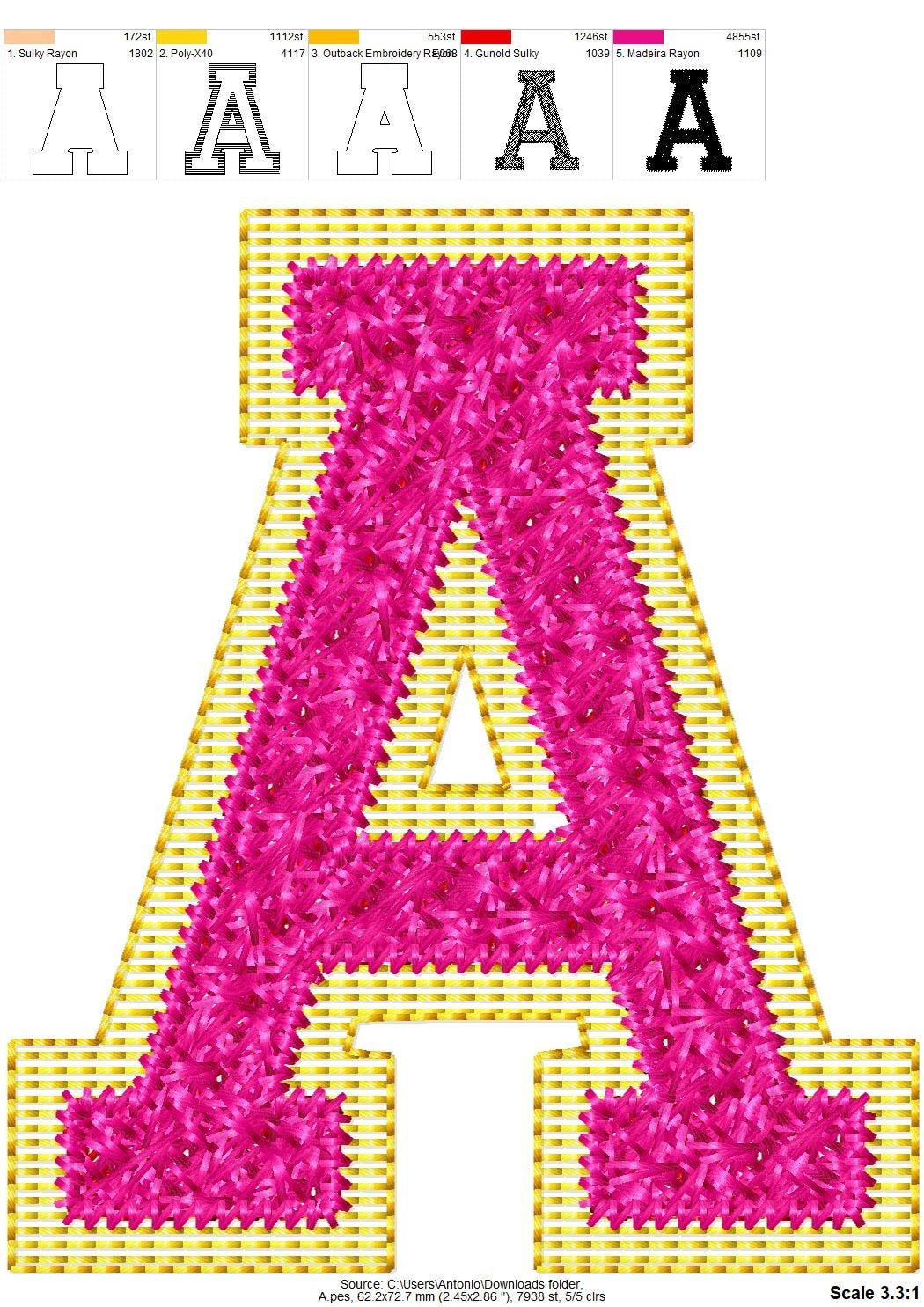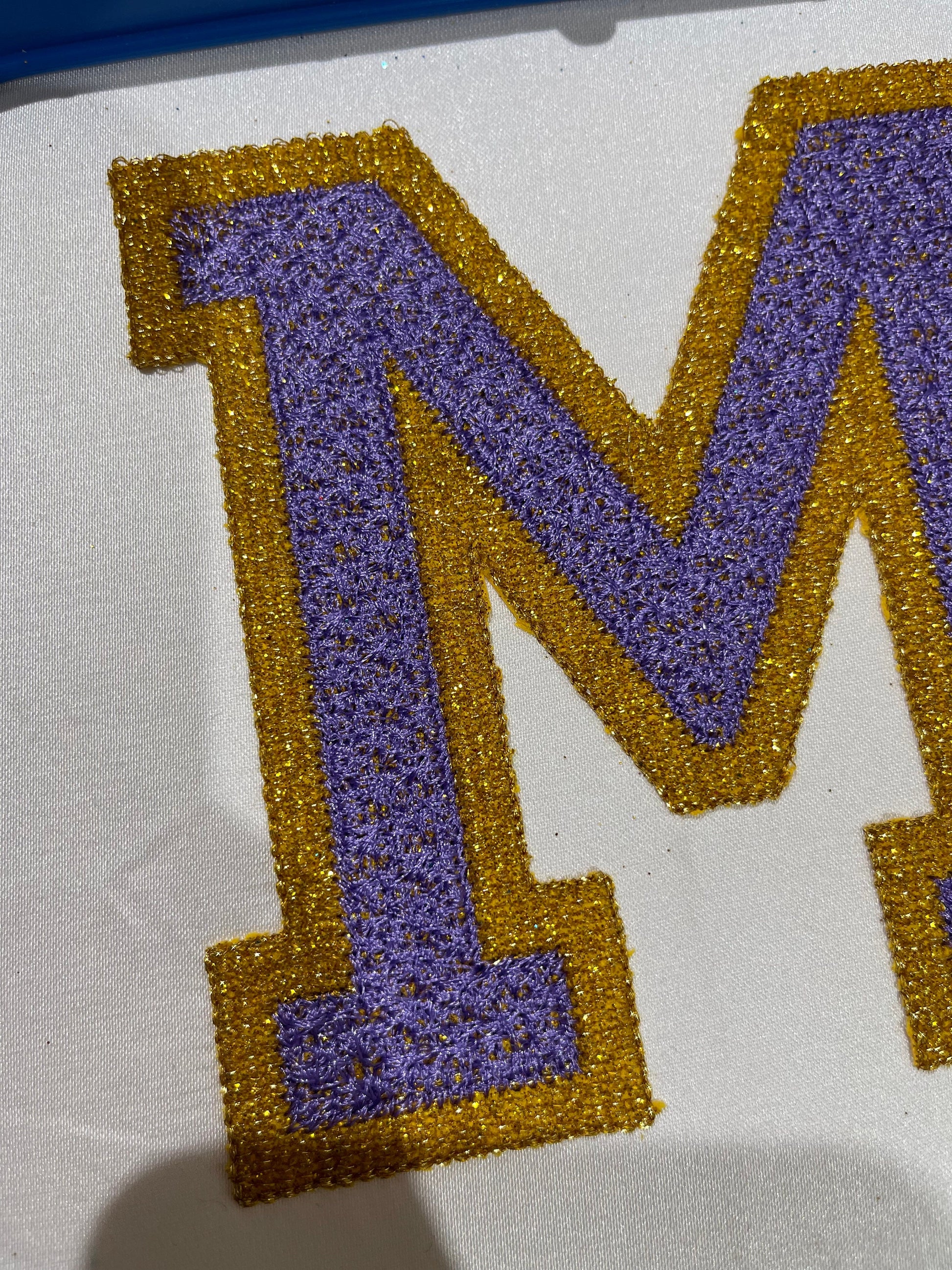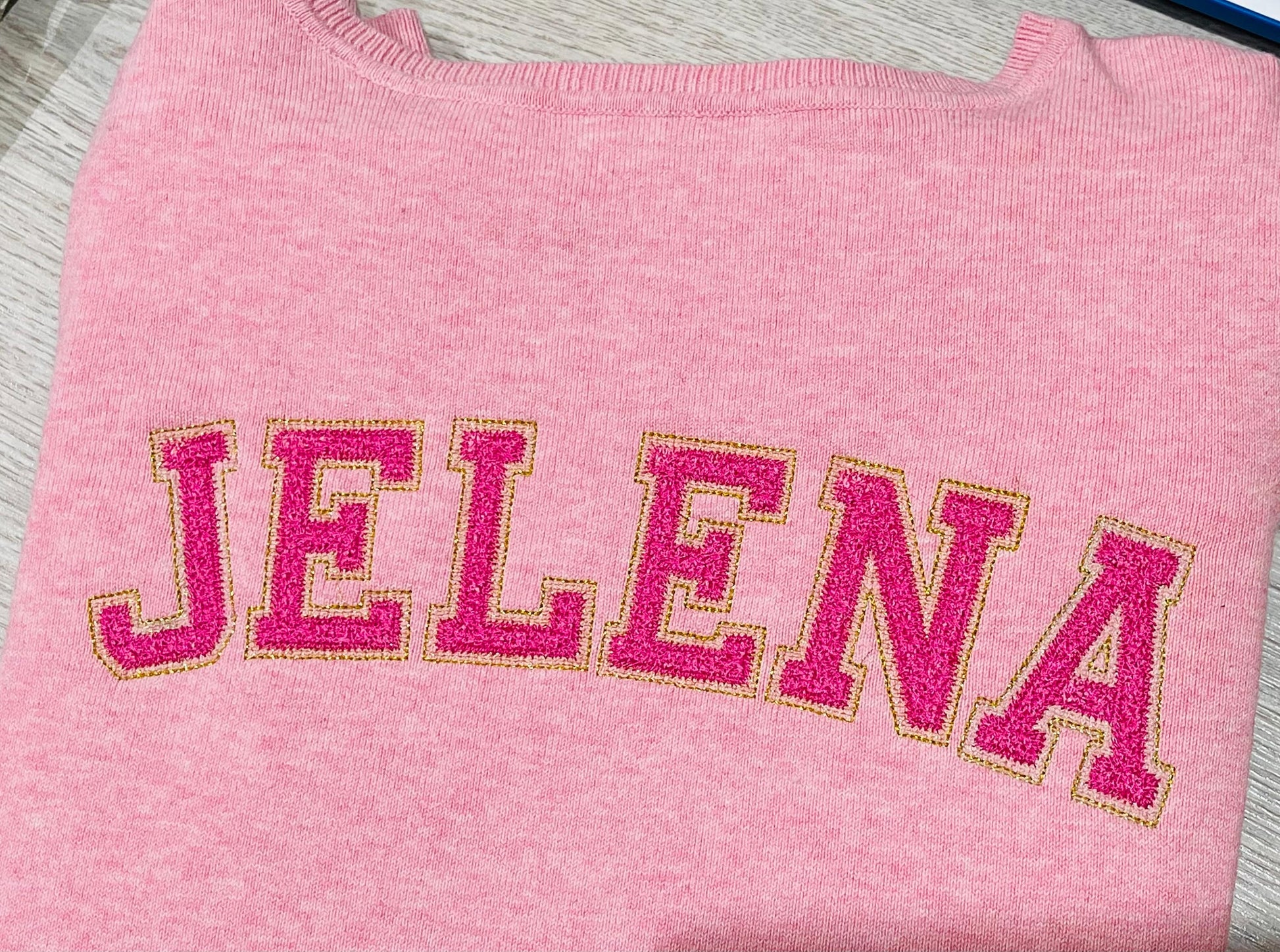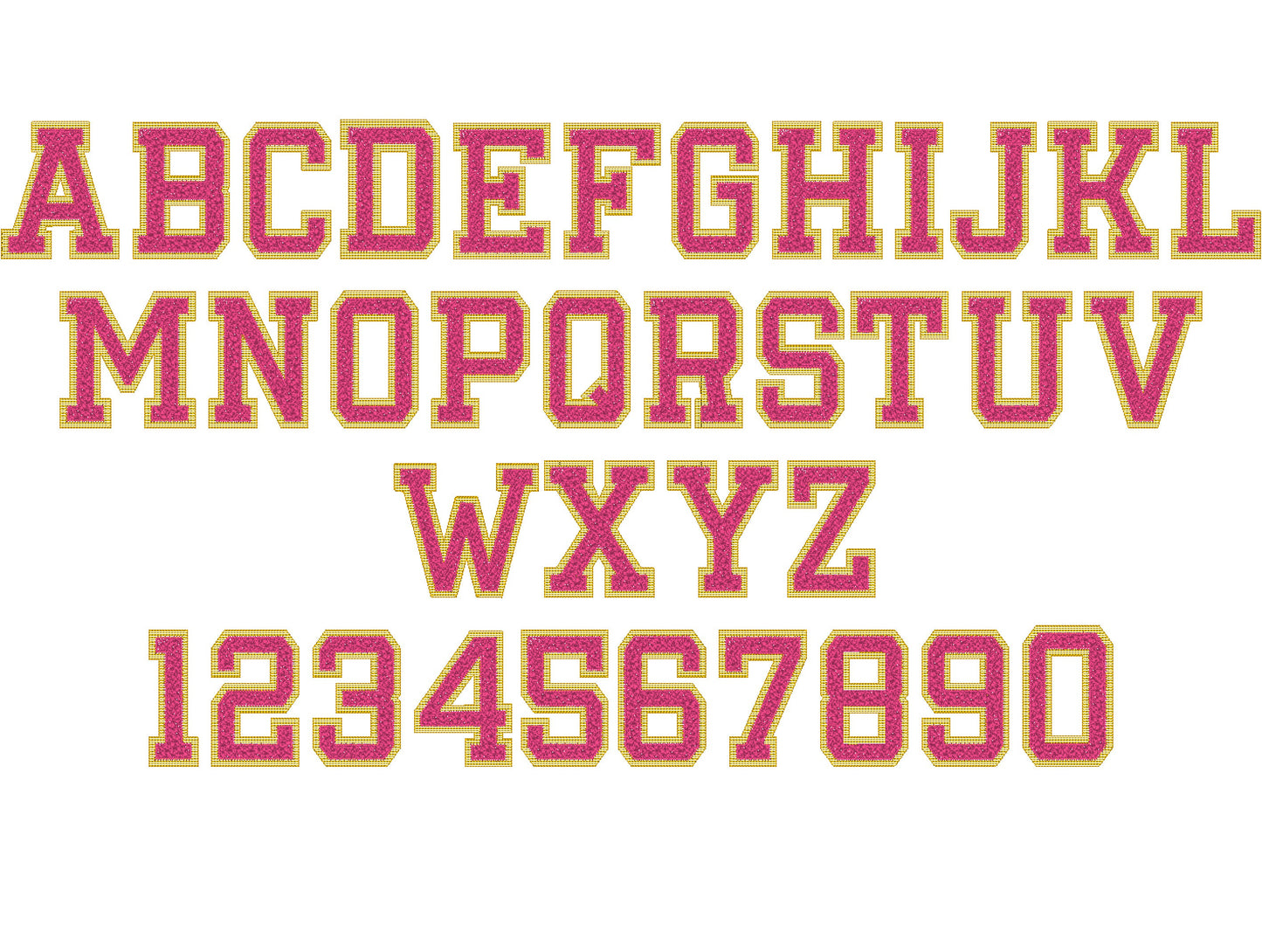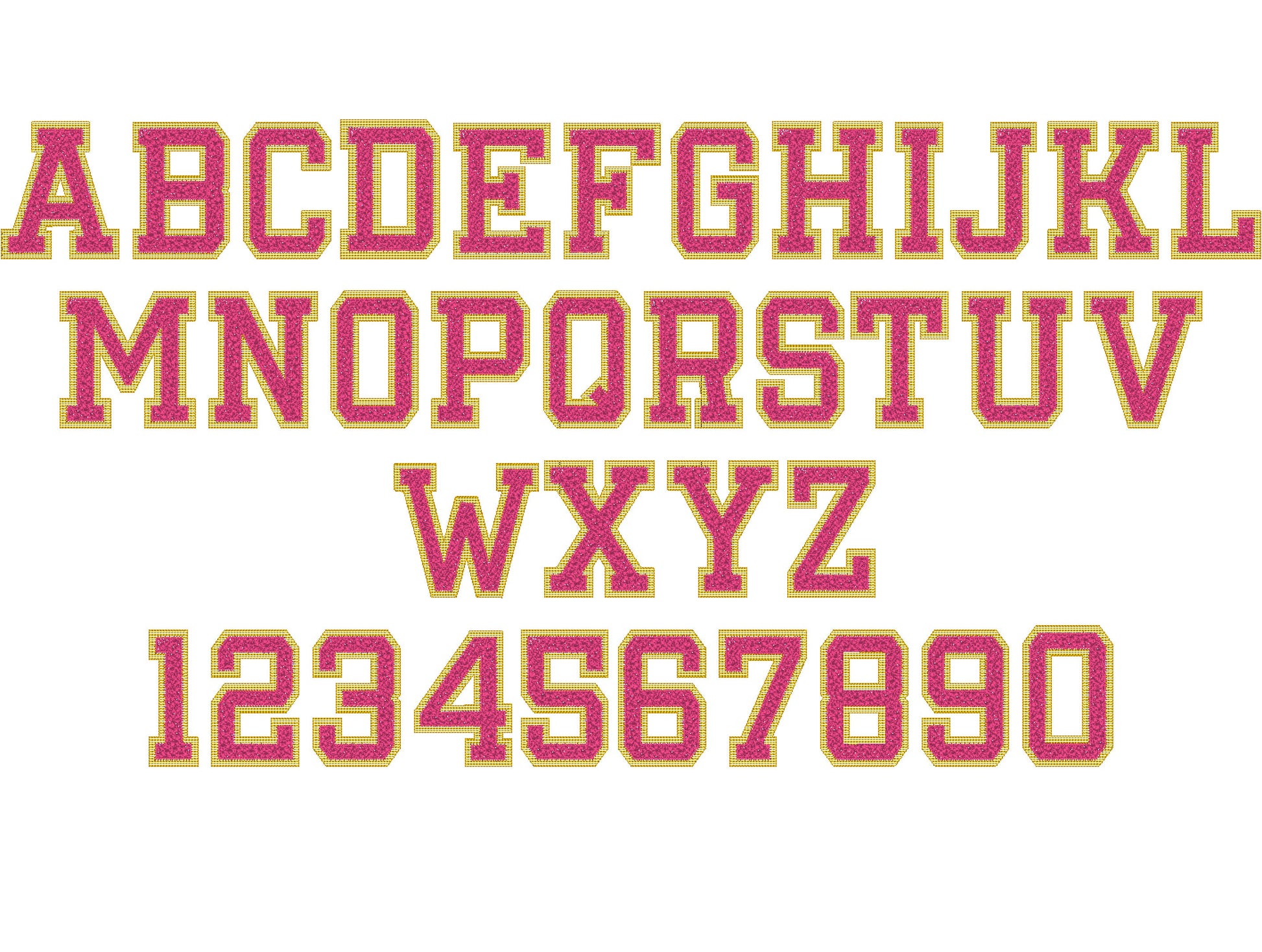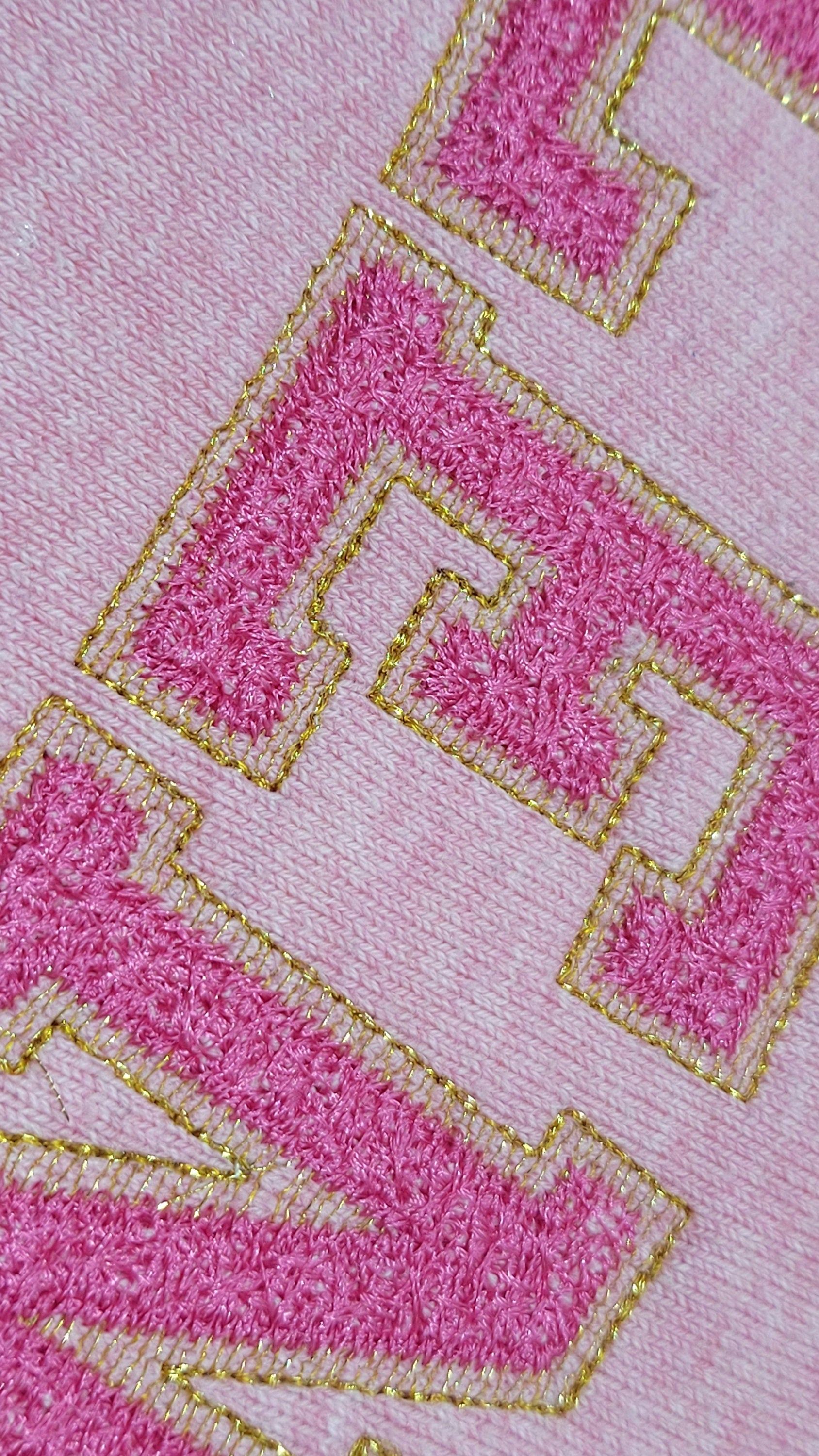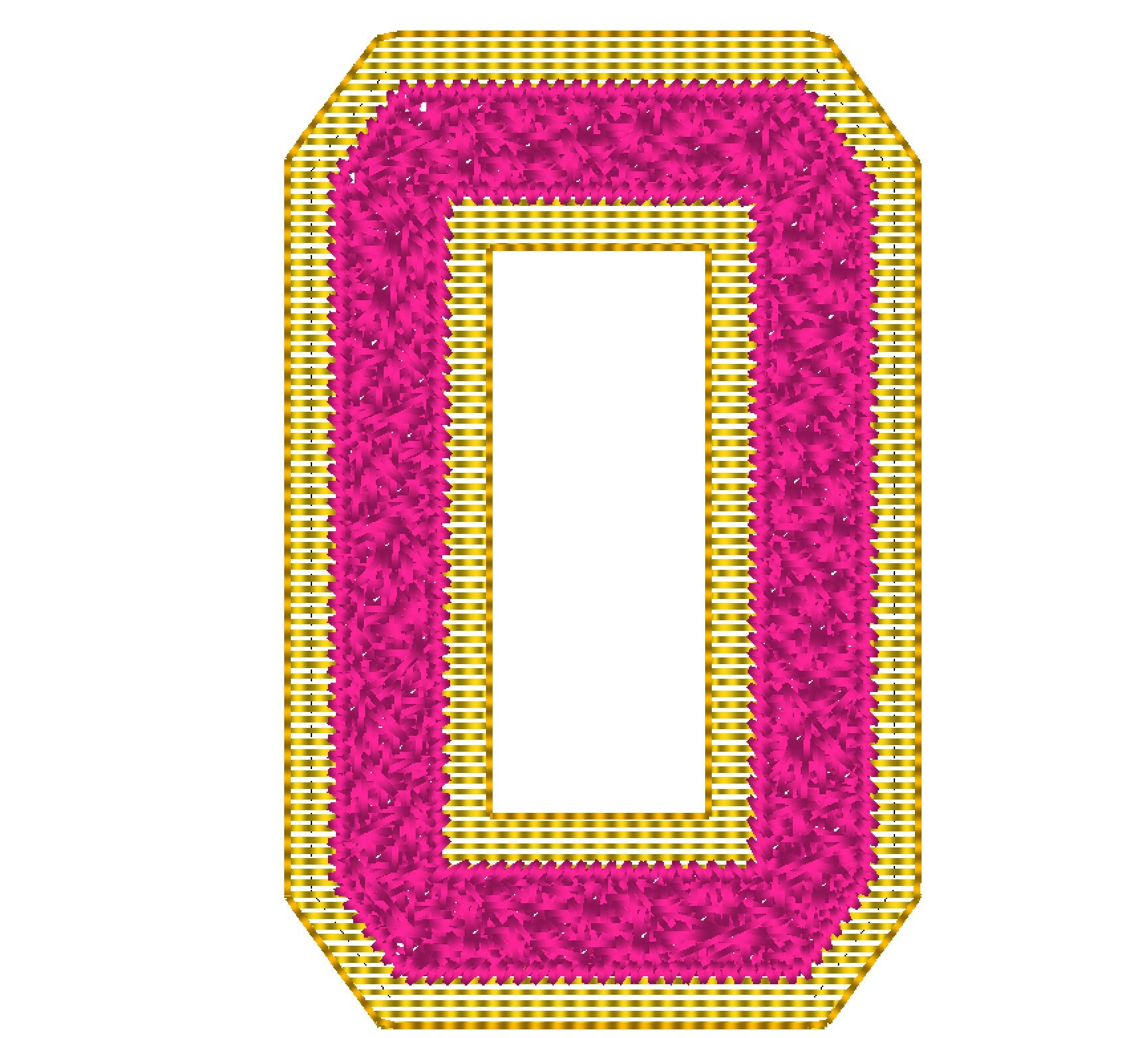
Faux Chenille Glitter HTV Athletic Font
Included: Uppercase A-Z, Numbers 0-9
An athletic varsity font with a faux chenille look and a glitter vinyl layer. Great for letterman-style sweatshirts, jackets and team shirts.
Uppercase letters A to Z and numbers 0 to 9. Five sizes: 2.5, 3, 3.5, 4 and 4.5 inches. Use glitter vinyl or mylar; tear or trim it along the edges.
• Faux chenille glitter vinyl varsity font
• Uppercase A to Z, numbers 0 to 9
• 5 sizes, 2.5 to 4.5 in